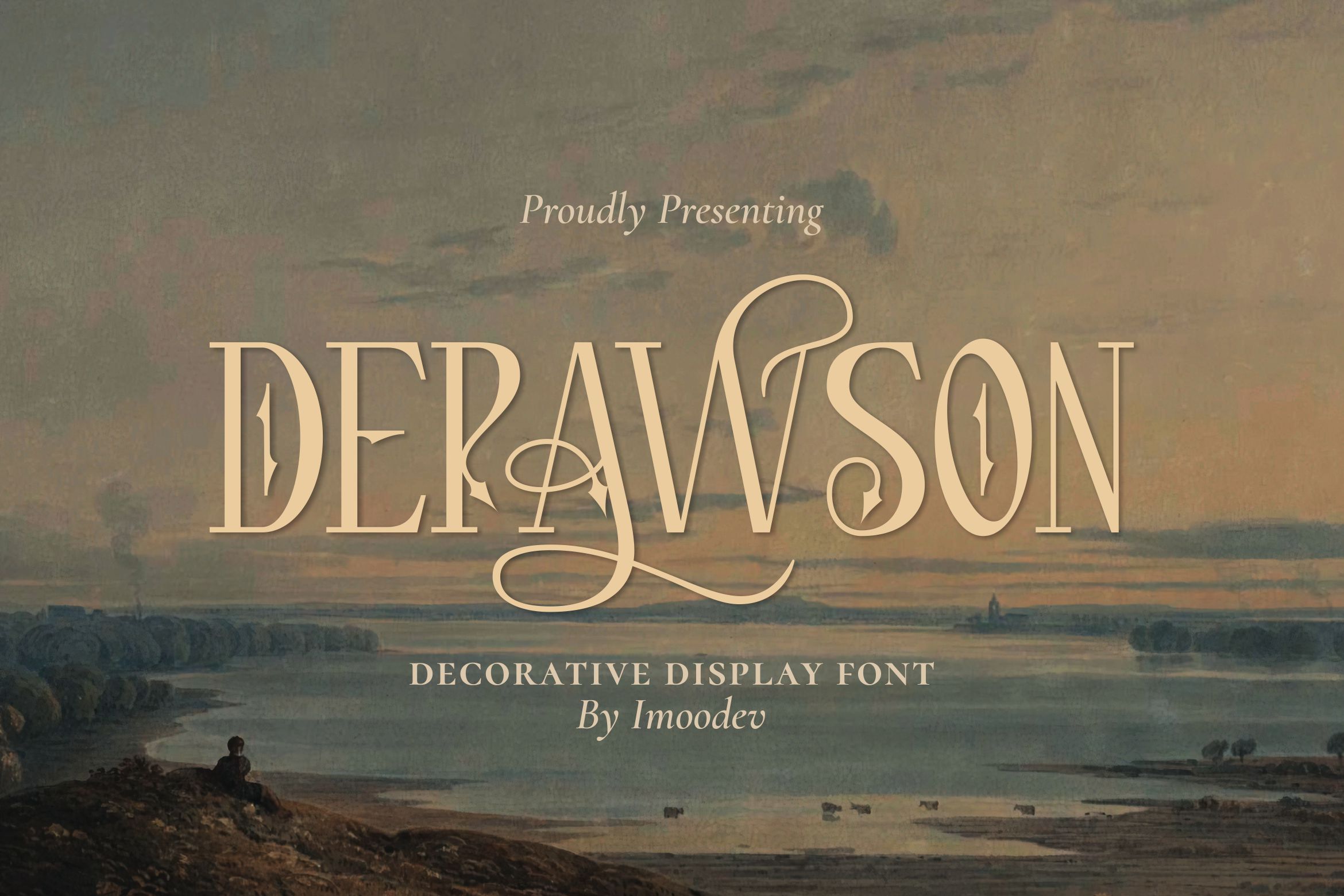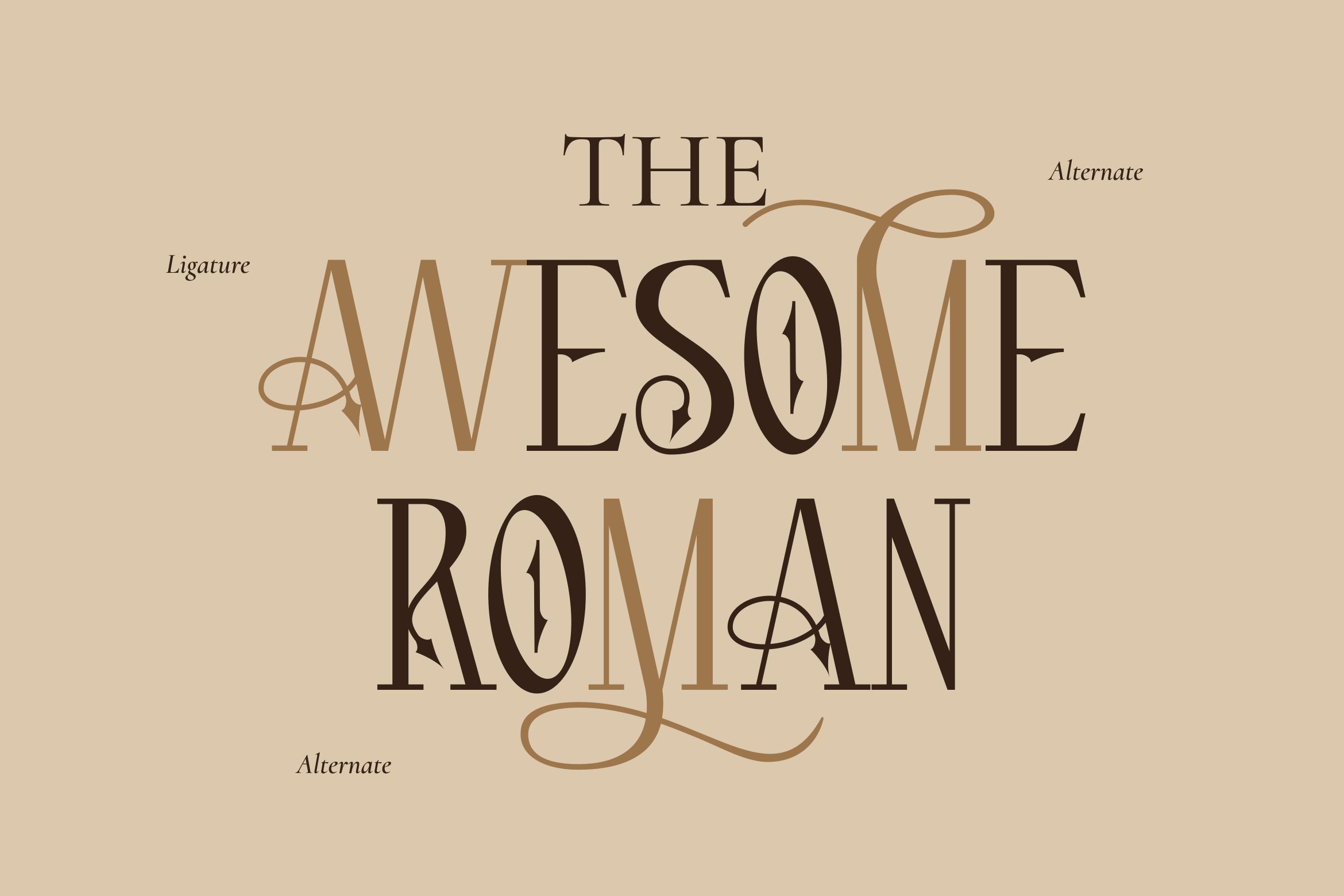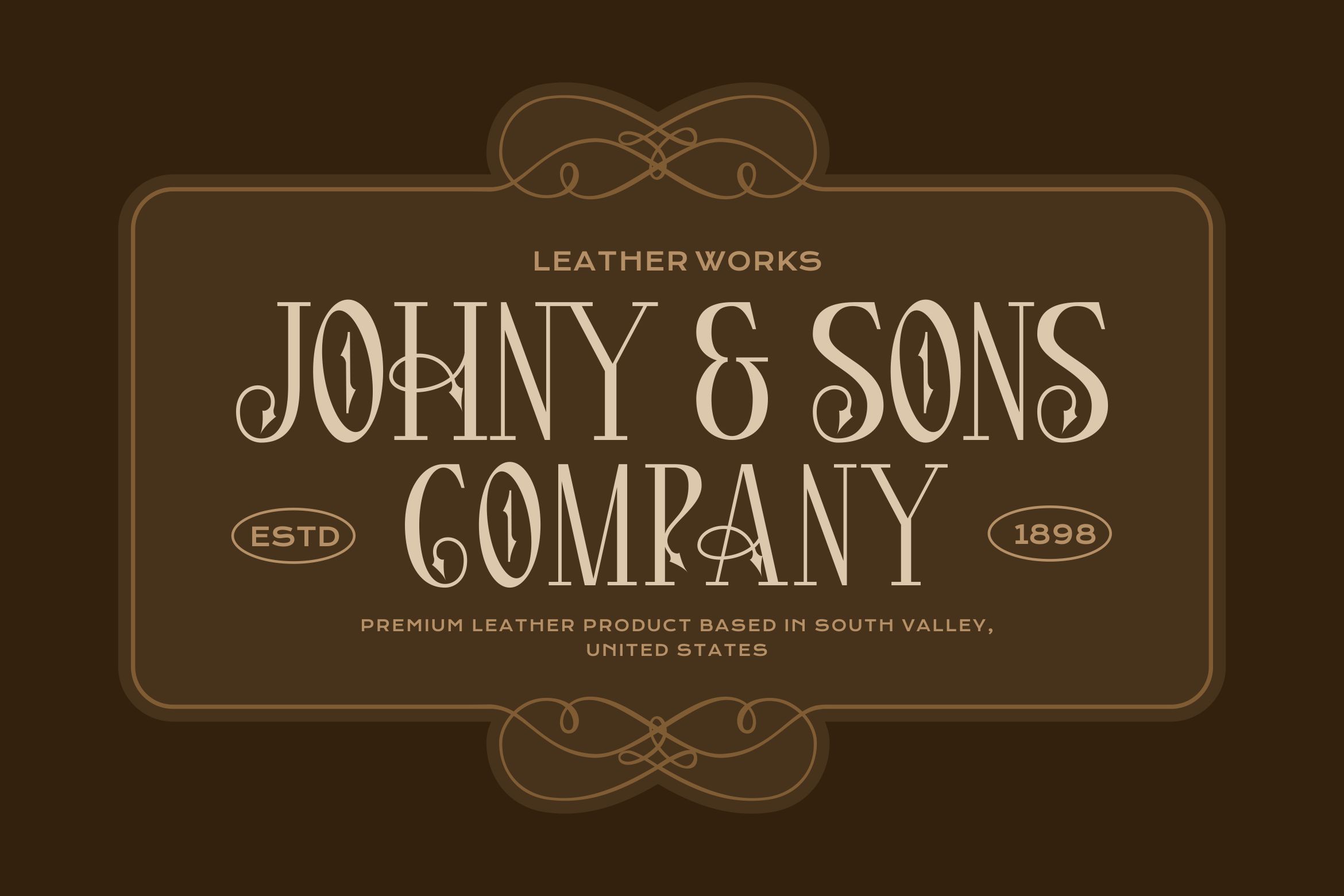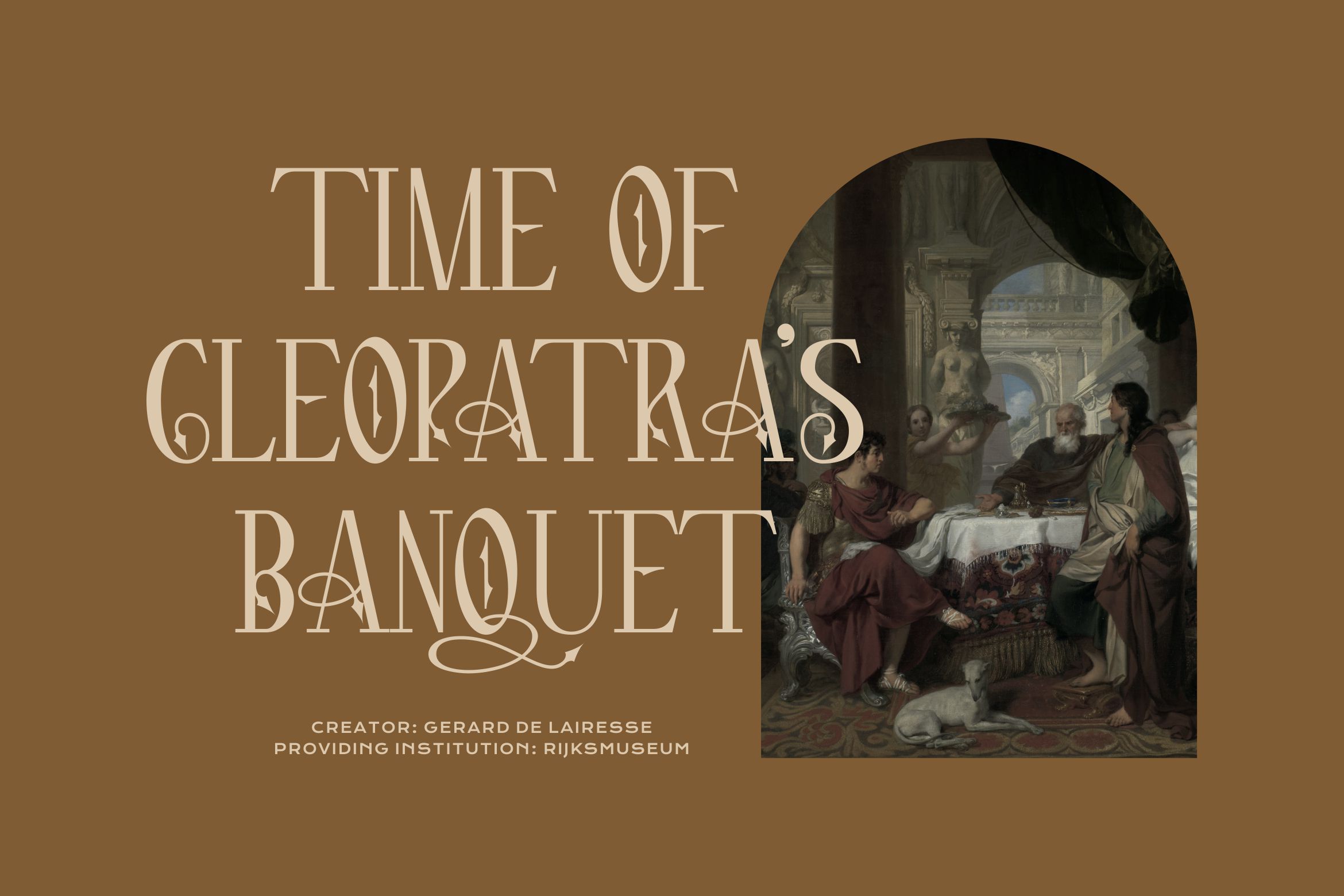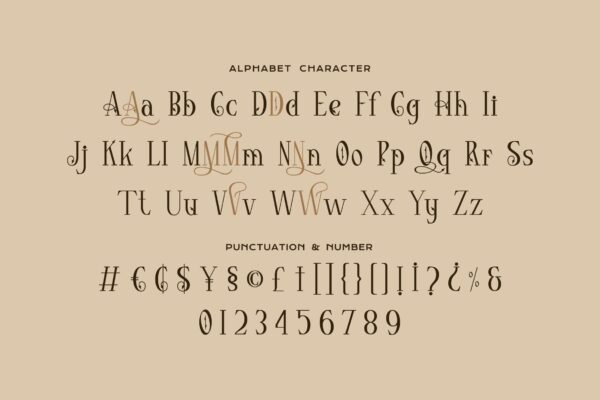
Depawson
Depawson is a decorative display font that combines vintage elegance with artistic flourishes. Its tall and refined letterforms are enriched with stylish alternates and ornate ligatures, creating a timeless look that is both luxurious and sophisticated. Perfect for classic branding, editorial design, wedding invitations, and premium product packaging, this font evokes a sense of history and refinement.
With its unique decorative details and multilingual support, Depawson gives designers flexibility to craft striking headlines and logos. Whether applied to book covers, boutique labels, or event promotions, this font enhances any project with grace and charm. Its intricate design makes it a standout choice for those seeking a decorative yet highly readable display font.